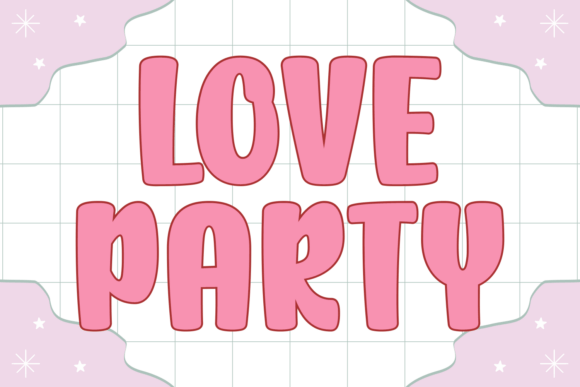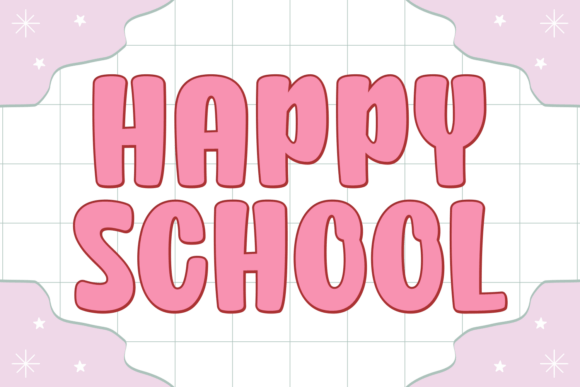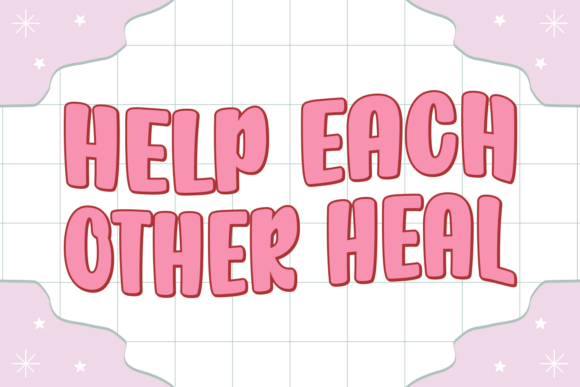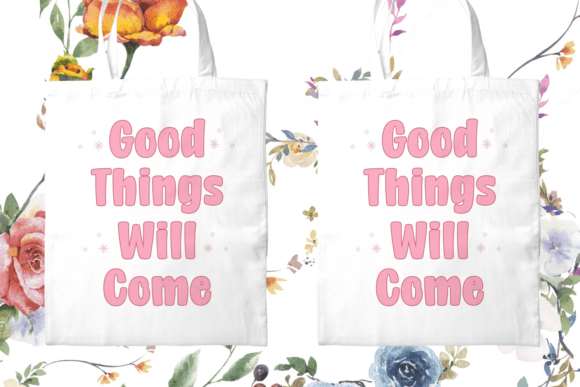
Introducing Bright Wishes Font: A Retro-Chic Dream Come True
Have you ever been in the middle of a crafting project, scrolling through font after font, and just can’t seem to find that perfect match? I recently found myself in this exact situation while working on a fun DIY party invitation for a friend’s birthday. The project required a font that screamed ’70s and ’80s retro charm with a dash of modern quirkiness. That’s when I stumbled upon the delightful Bright Wishes font.
A Personal Design Moment: Finding the Perfect Font
I was determined to create an invitation that would transport my friend back to her childhood, filled with memories of Saturday morning cartoons, sugary cereals, and playdates. The catch? The font had to capture that whimsical, carefree essence. After hours of browsing through font libraries, I finally hit the jackpot with Bright Wishes. Its unique blend of retro vintage charm and groovy aesthetics instantly resonated with my project’s vision.
- ✨ Retro-Chic Aesthetic: Bright Wishes embodies the playful spirit of the ’70s and ’80s, making it perfect for themed projects or simply adding a nostalgic touch.
- ✅ Smooth and Simple Style: Its gentle curves and contours give it a charmingly girly feel, ideal for crafting projects that require a touch of femininity.
- 🎉 Modern Quirkiness: This font doesn’t just stick to traditional retro vibes; it adds a sprinkle of modern playfulness, making it versatile for various creative applications.
- 🤔 Limited Use in Formal Contexts: Due to its playful nature, Bright Wishes might not be the best fit for formal projects or professional documents.
Bright Wishes was designed with the intention of capturing the pure joy and carefree spirit of childhood. Inspired by vintage typography and modern digital trends, the designer aimed to create a font that would transport users back to a time of simplicity and playfulness. With its unique blend of retro charm and modern quirkiness, Bright Wishes is sure to become a favorite among designers and crafters alike.
| What makes Bright Wishes unique? | Its blend of retro vintage charm, groovy aesthetics, and modern quirkiness. |